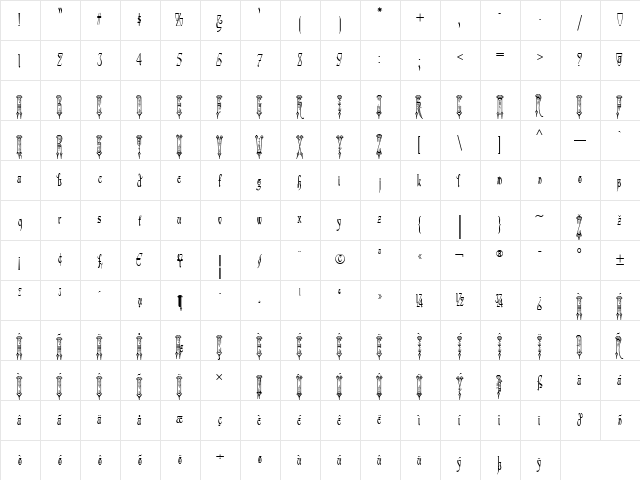
Funky Tut NF Regular
Design Context for Funky Tut NF Typeface
Funky Tut NF has an approachable, lighthearted character — its loose, expressive forms are well-suited to children's content, casual branding, and fun-first design.
Font Pairing: Pairs well with a rounded or humanist sans for body copy, maintaining the friendly tone without relying on Funky Tut NF to carry extended reading.
Pro Tip: Avoid using Funky Tut NF for long passages of text — it works best for headlines, labels, and short calls to action.